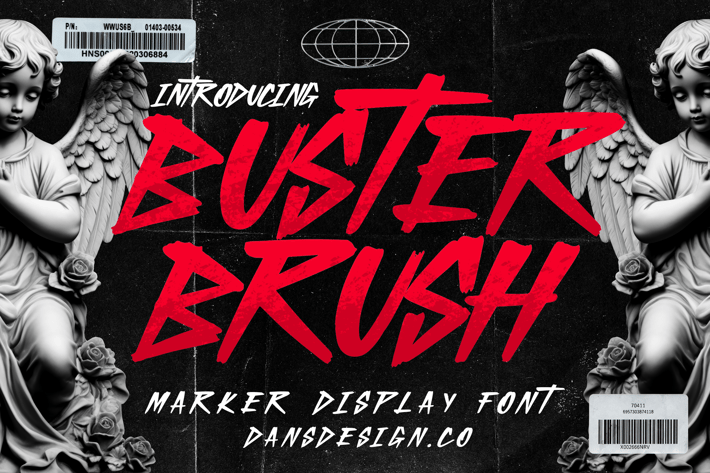
Buster Brush Modern Marker Display Font
Buster Brush Modern Marker Display Font a distinct, highly detailed. Marker Display Font.
It would make a great choice for exquisite retro-urban designs, business branding, logos, Apparel designs, and more.